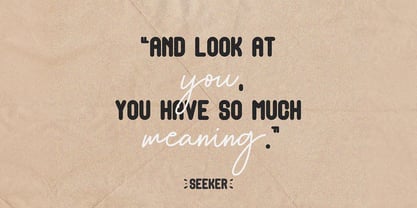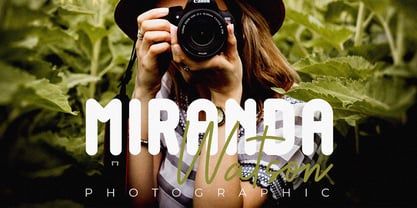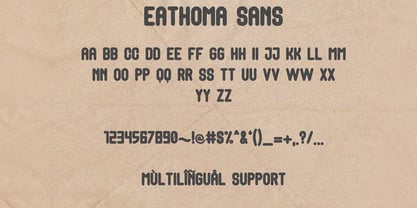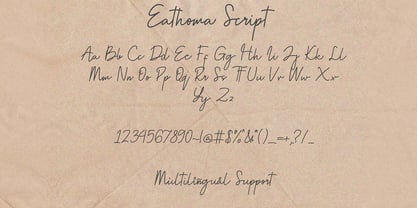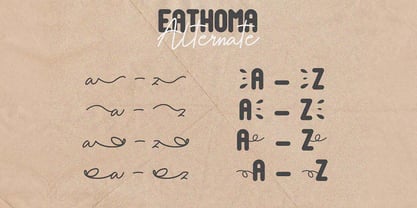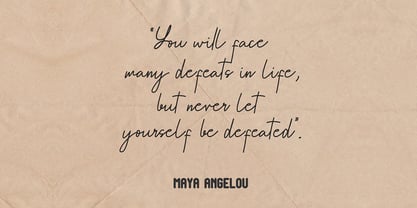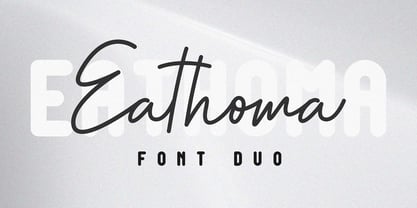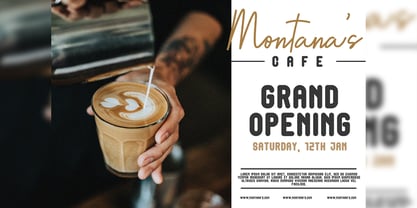
Eathoma
by Jadatype
The Eathoma Font Family was designed by Jada Akbal and published by Jadatype. Eathoma contains 2 styles and family package options. More about this family
Eathoma is a font duo with a combination of script and sans serif with a cozy and modern look. Eathoma font duo is suitable for input on your branding designs, logos, greeting cards, products, crafts. and others.